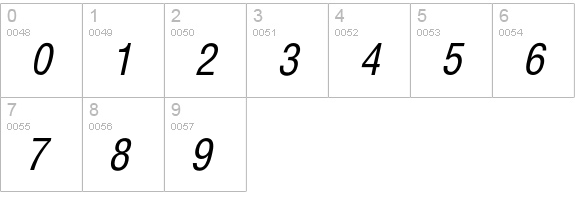
HallmarkeCondBookOblique Font Details
HallmarkeCondBookOblique font is a stunning typeface that exudes elegance and sophistication. Its sleek and slanted design gives it a touch of modernity, making it perfect for contemporary designs. This font features clean and crisp lines, making it highly legible even at smaller sizes. With its unique blend of classic and contemporary elements, HallmarkeCondBookOblique is incredibly versatile. It can be used for a wide range of design projects, including logos, headlines, posters, and branding materials. Its stylish and distinctive appearance will surely make your designs stand out from the crowd. What sets HallmarkeCondBookOblique apart is its incredible attention to detail. Every curve and stroke is meticulously crafted, resulting in a font that is visually pleasing and harmonious. Its balanced letterforms create a harmonious rhythm, making it pleasing to the eye and easy to read. One of the best things about HallmarkeCondBookOblique font is that it is freely available to download at FontsMarket.com. This means that you can enjoy its beauty and versatility without any cost. Whether you are a professional designer or a hobbyist, this font is a valuable addition to your font library. So, if you are looking for a font that combines elegance, modernity, and versatility, look no further than HallmarkeCondBookOblique. Its stylish and sophisticated design, combined with its availability as a free download, makes it the perfect choice for all your design needs. Get your hands on this font today and elevate your designs to new heights.